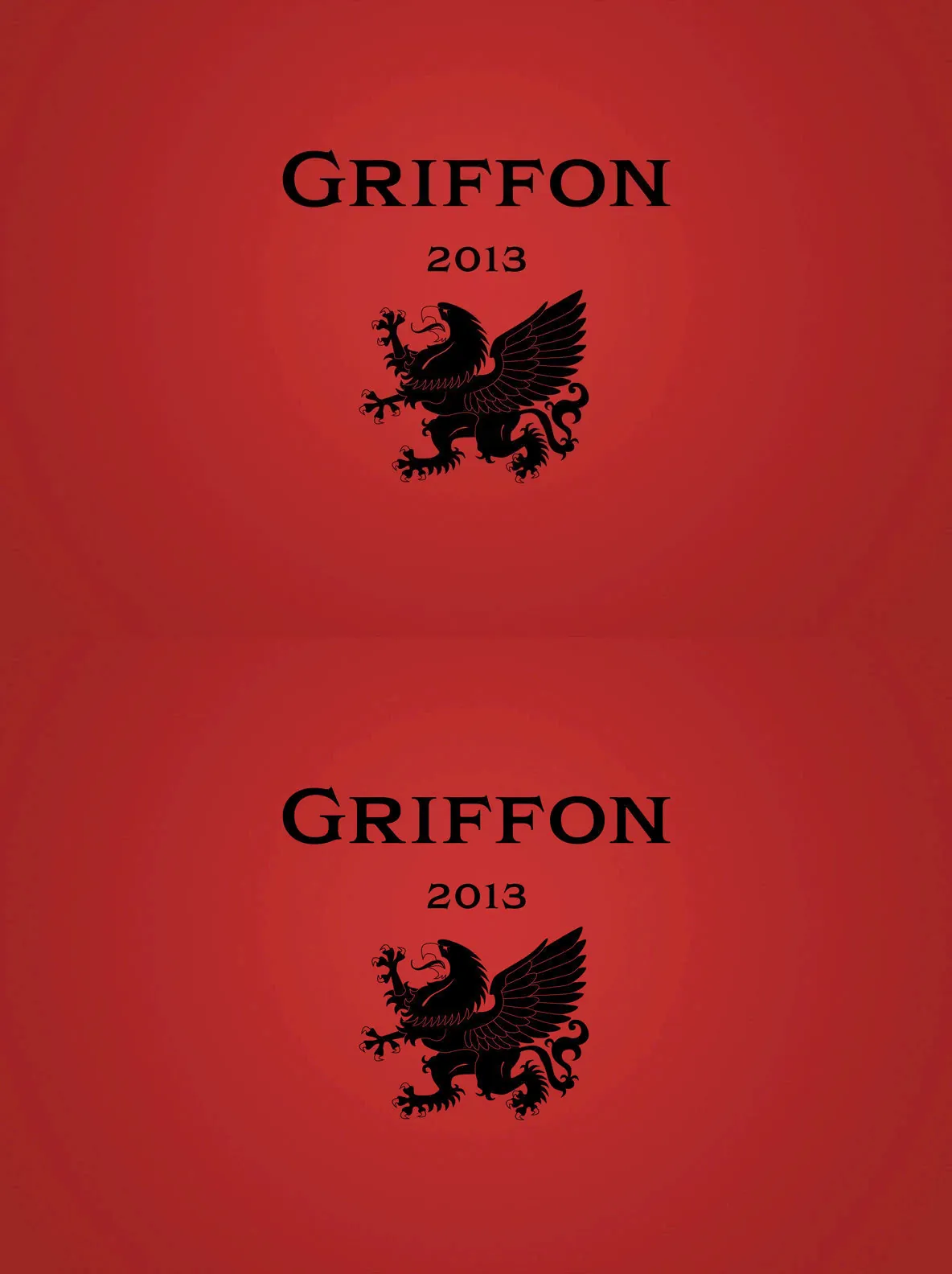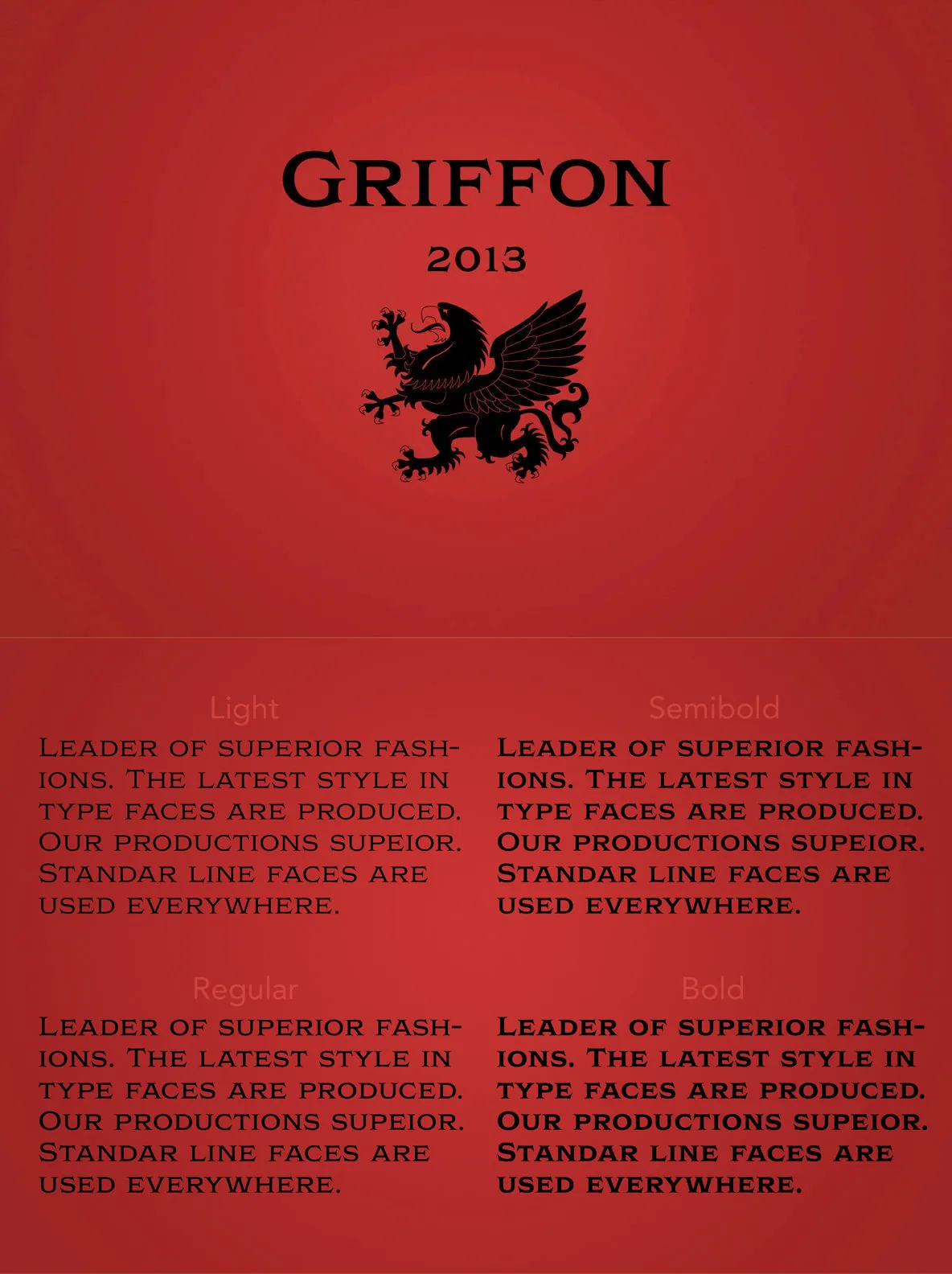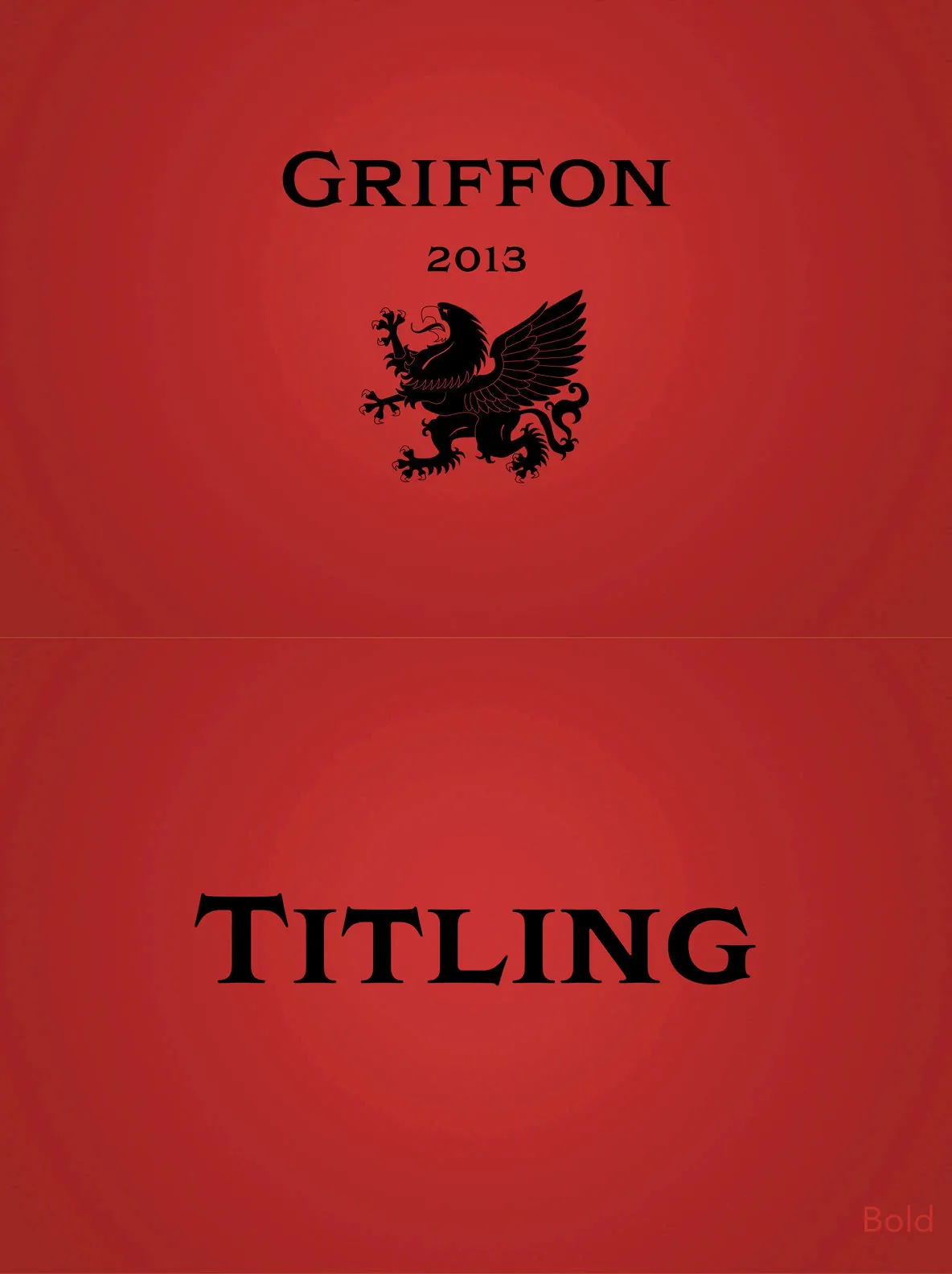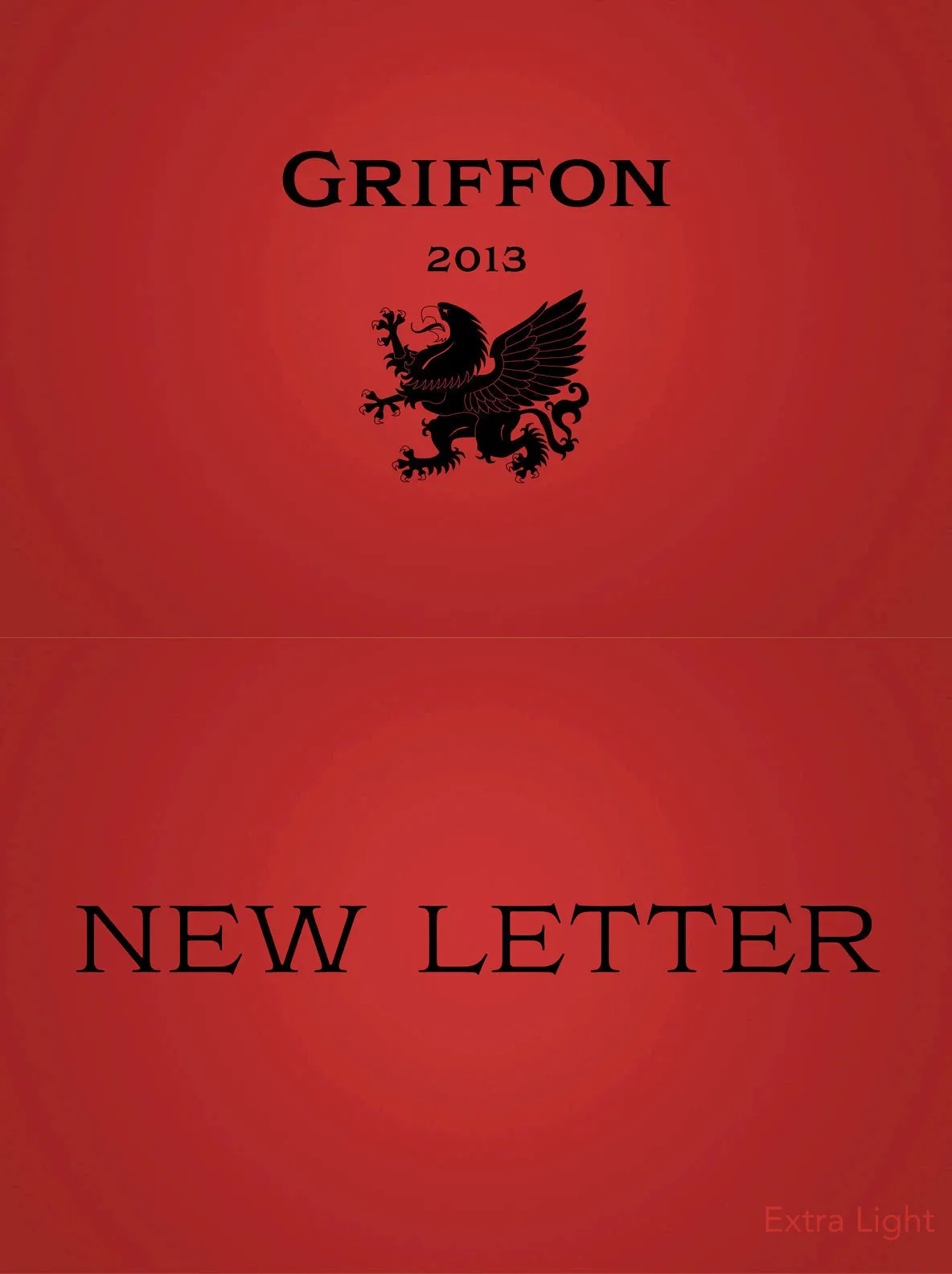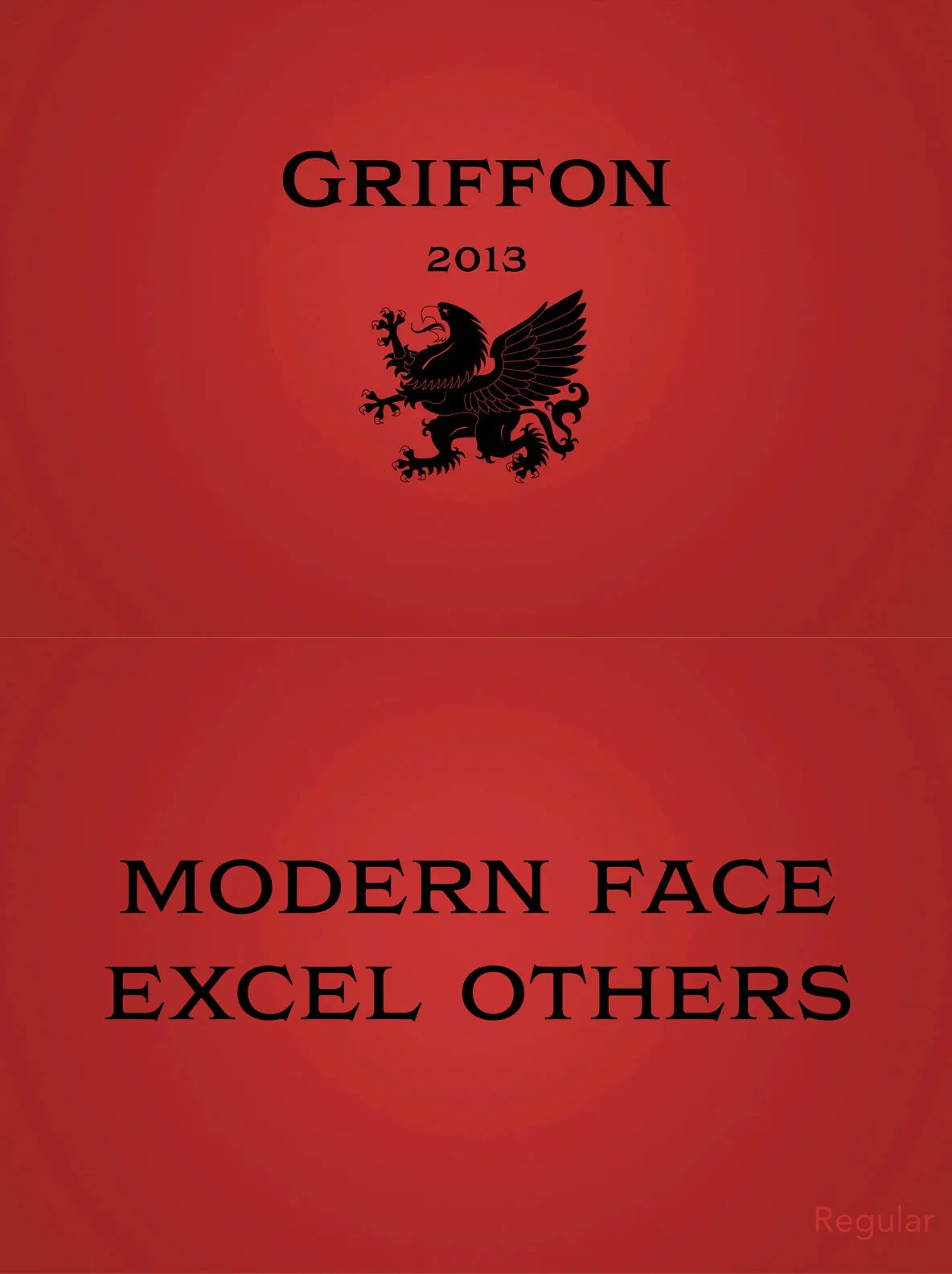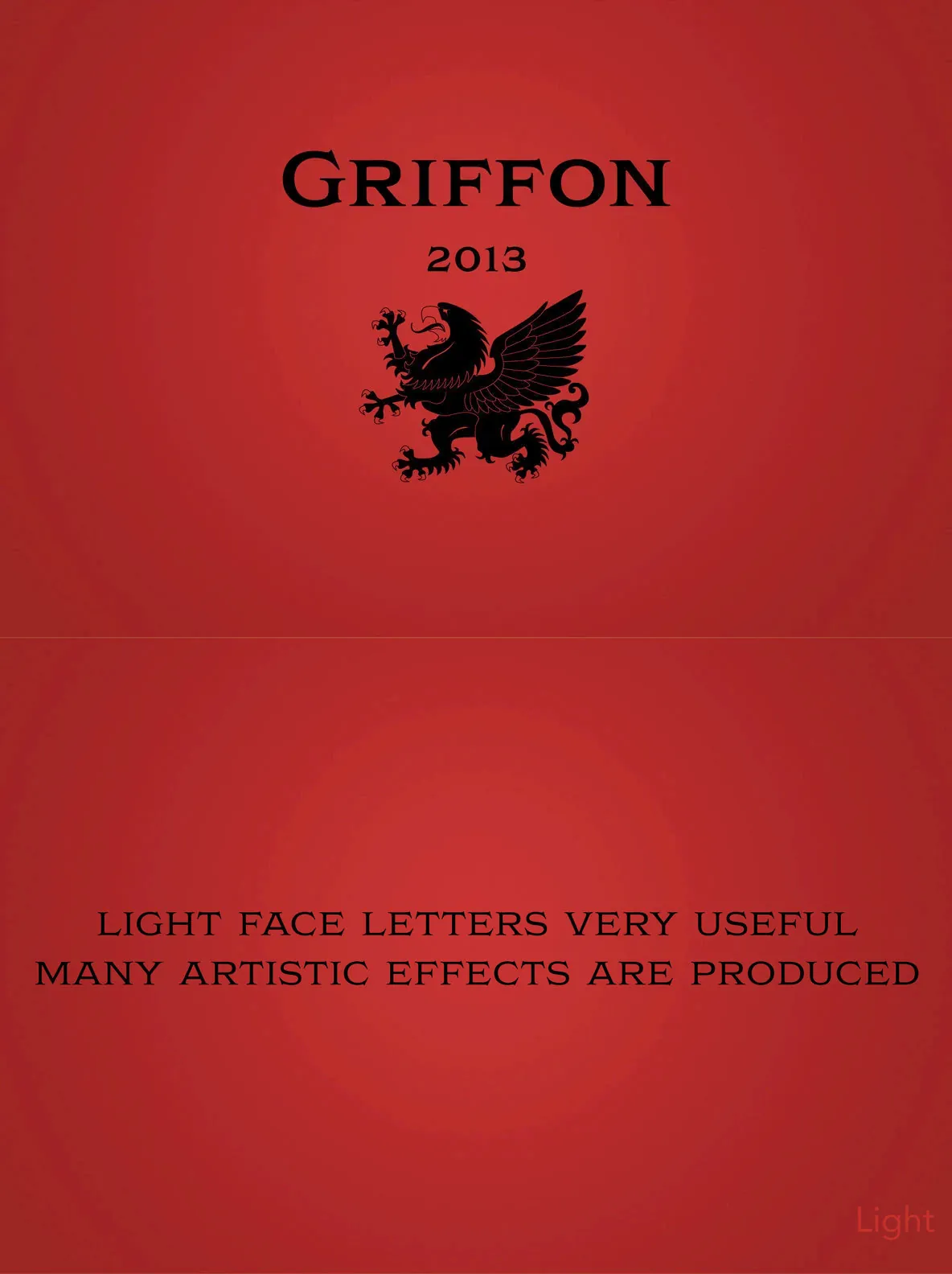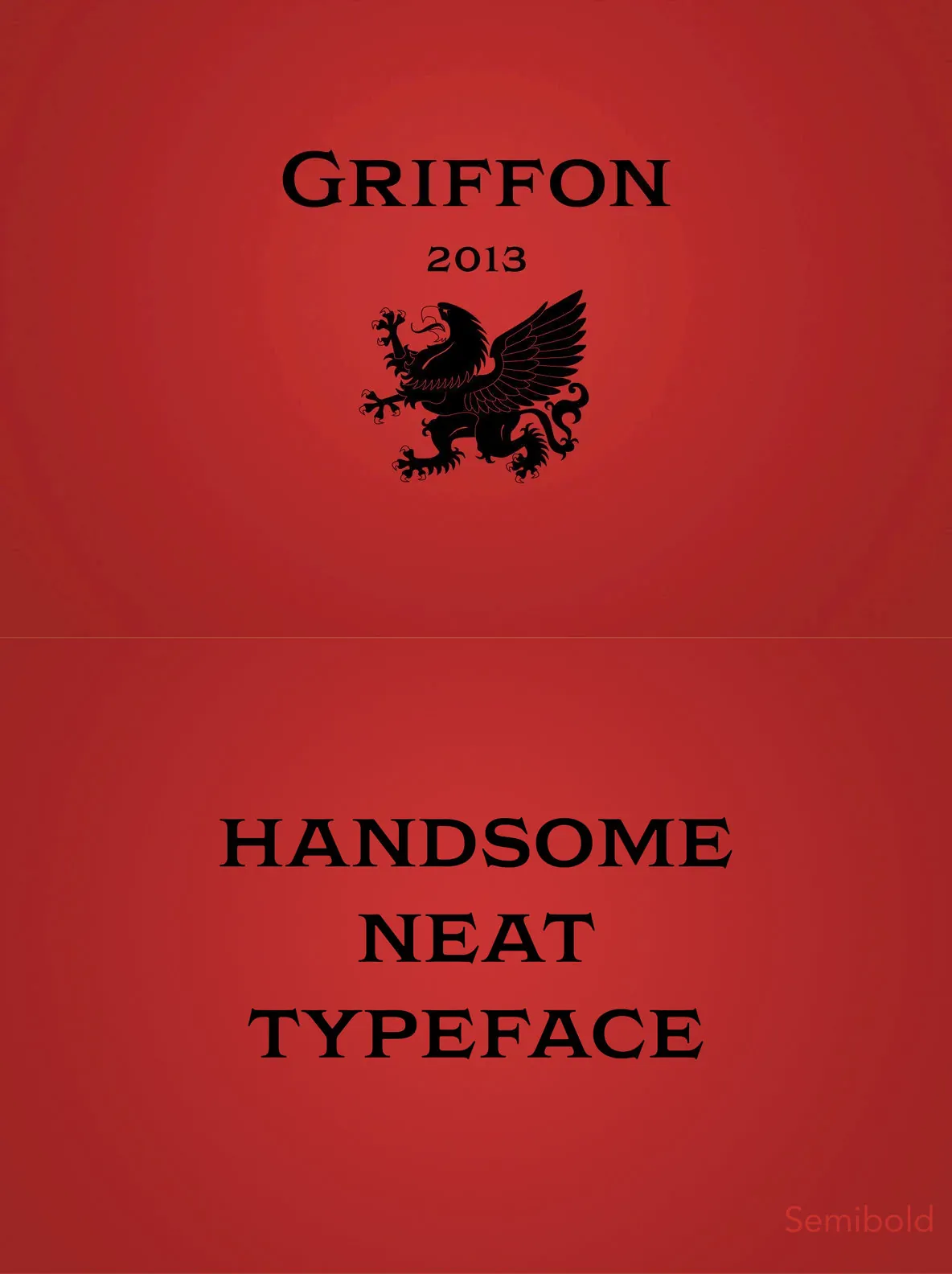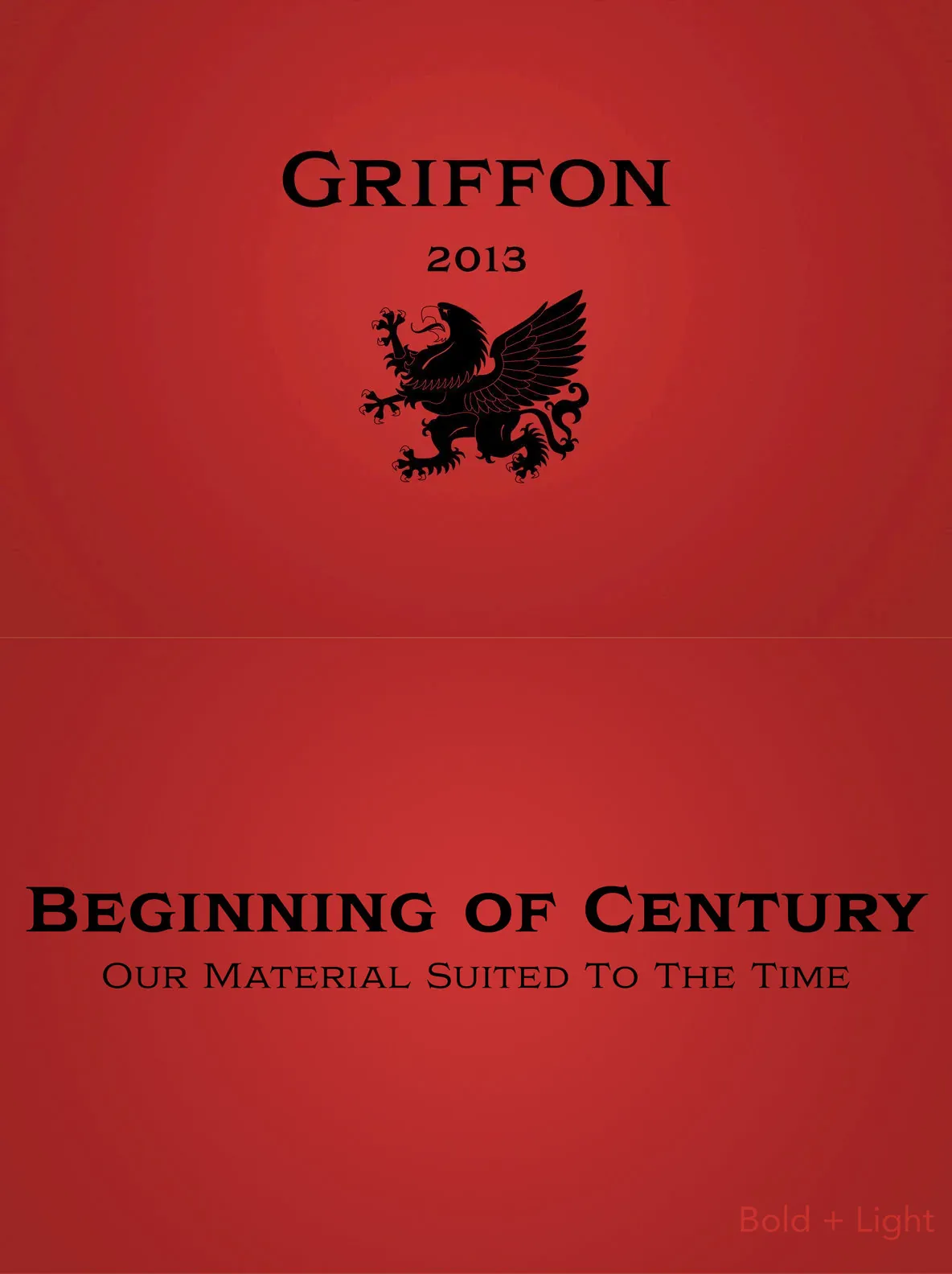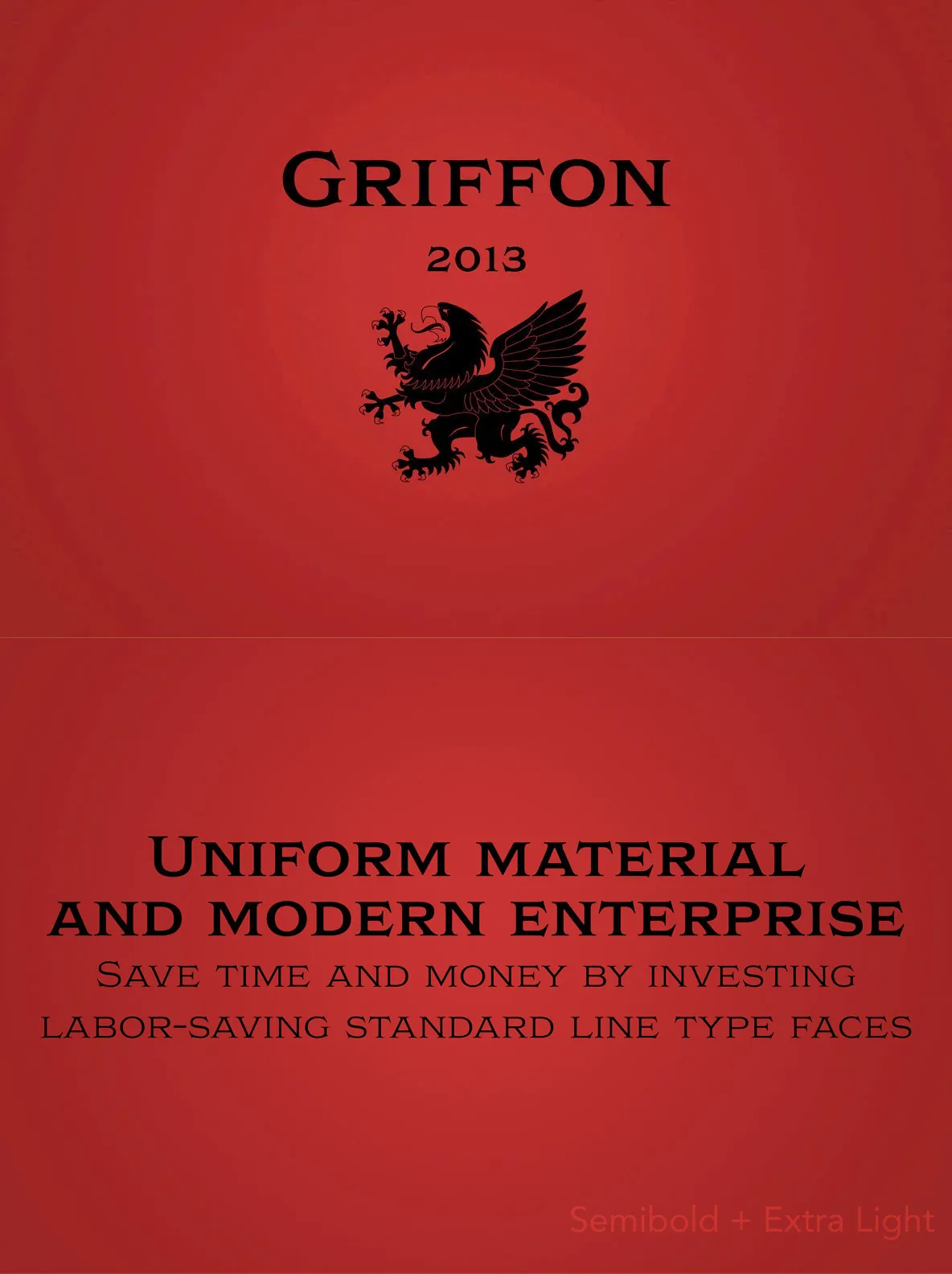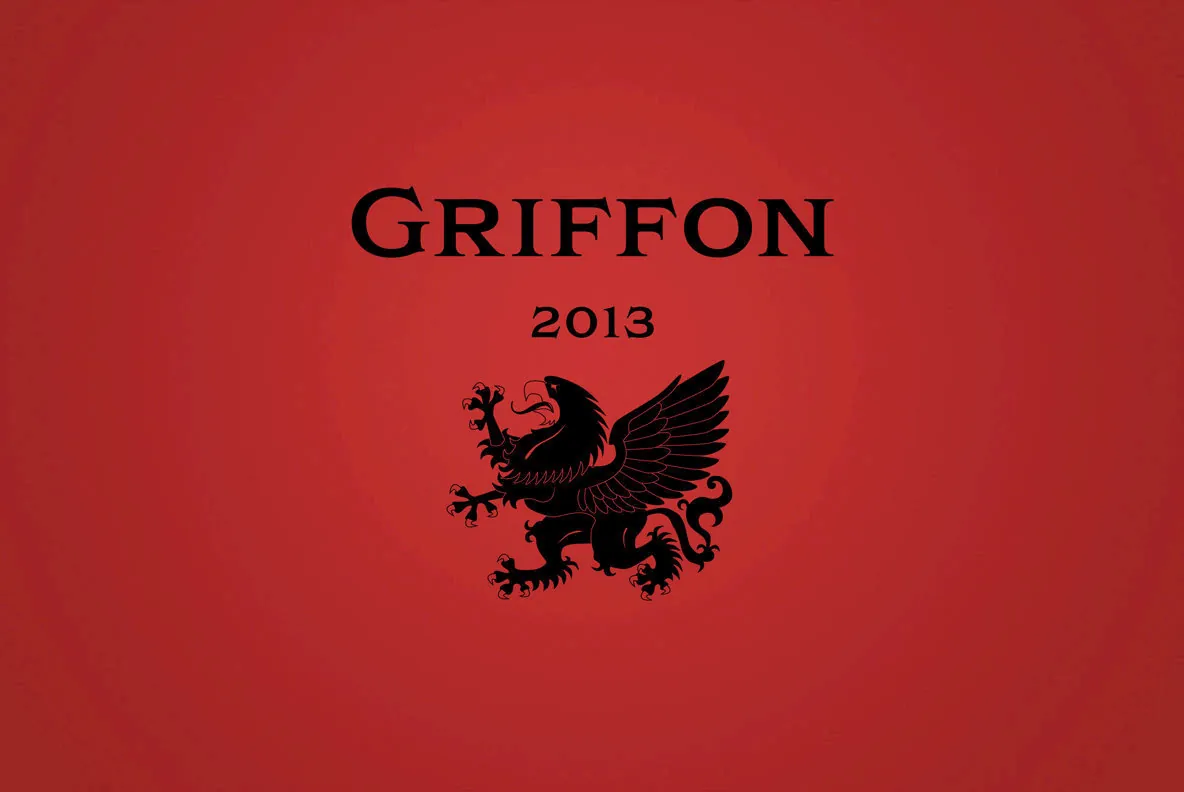
Griffon Font
Griffon: Timeless Titling Typeface Drawn from Classic Letterforms
Griffon blends early 20th-century influences with contemporary clarity. Its foundation lies in the iconic geometry and proportions of retro typography, yet every detail has been carefully re-imagined for modern use. The result is a robust and versatile titling family, ideal for design projects that call for a blend of heritage and refinement.
Five weights: Light through Bold
Small caps for added versatility
Redesigned from scratch for modern precision
Inspired by classic letterforms and vintage typefaces
Griffon lends distinctive character to headlines, editorial layouts, posters, and branding. Its clean structure and range of weights make it an excellent choice for designers seeking both impact and subtlety in their typographic palette.